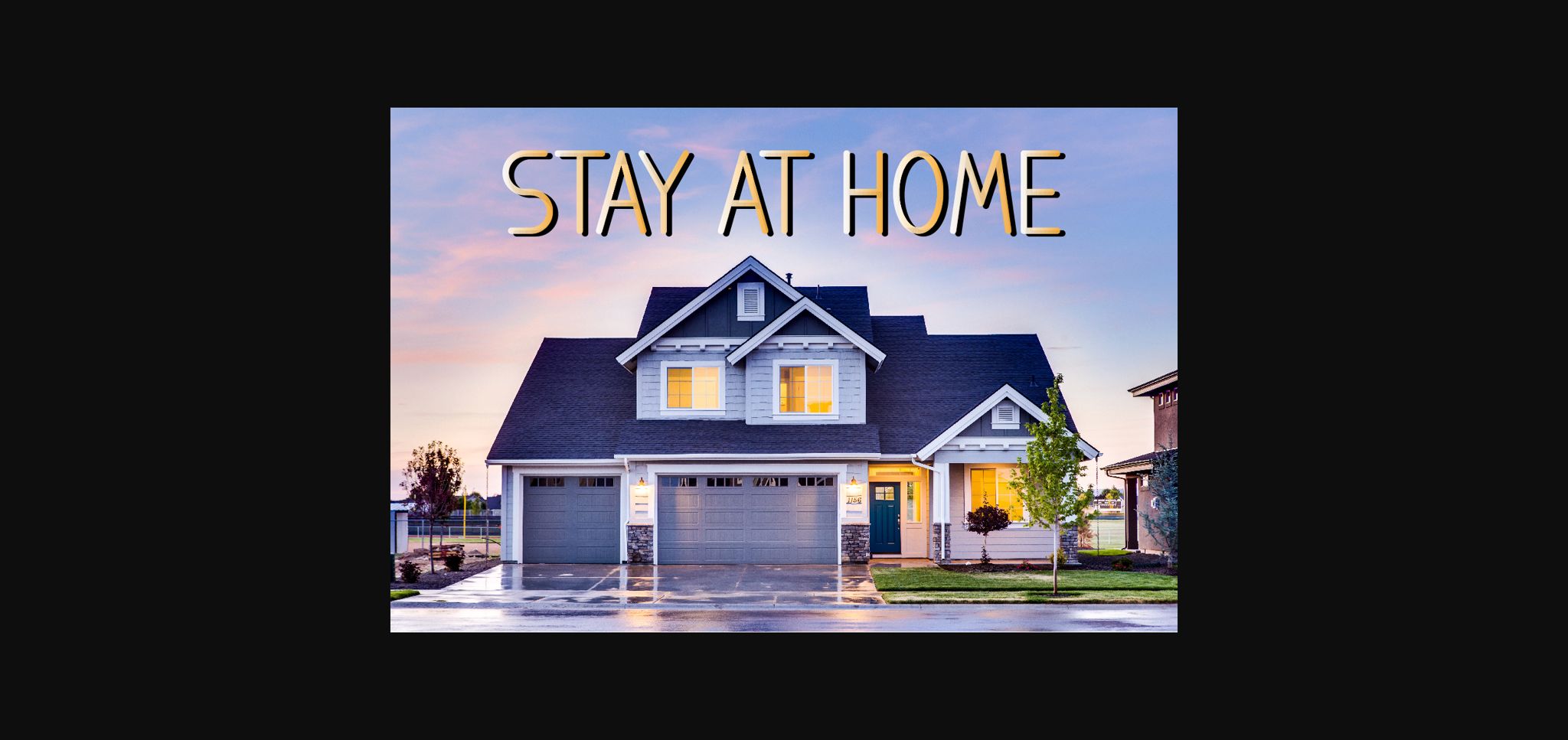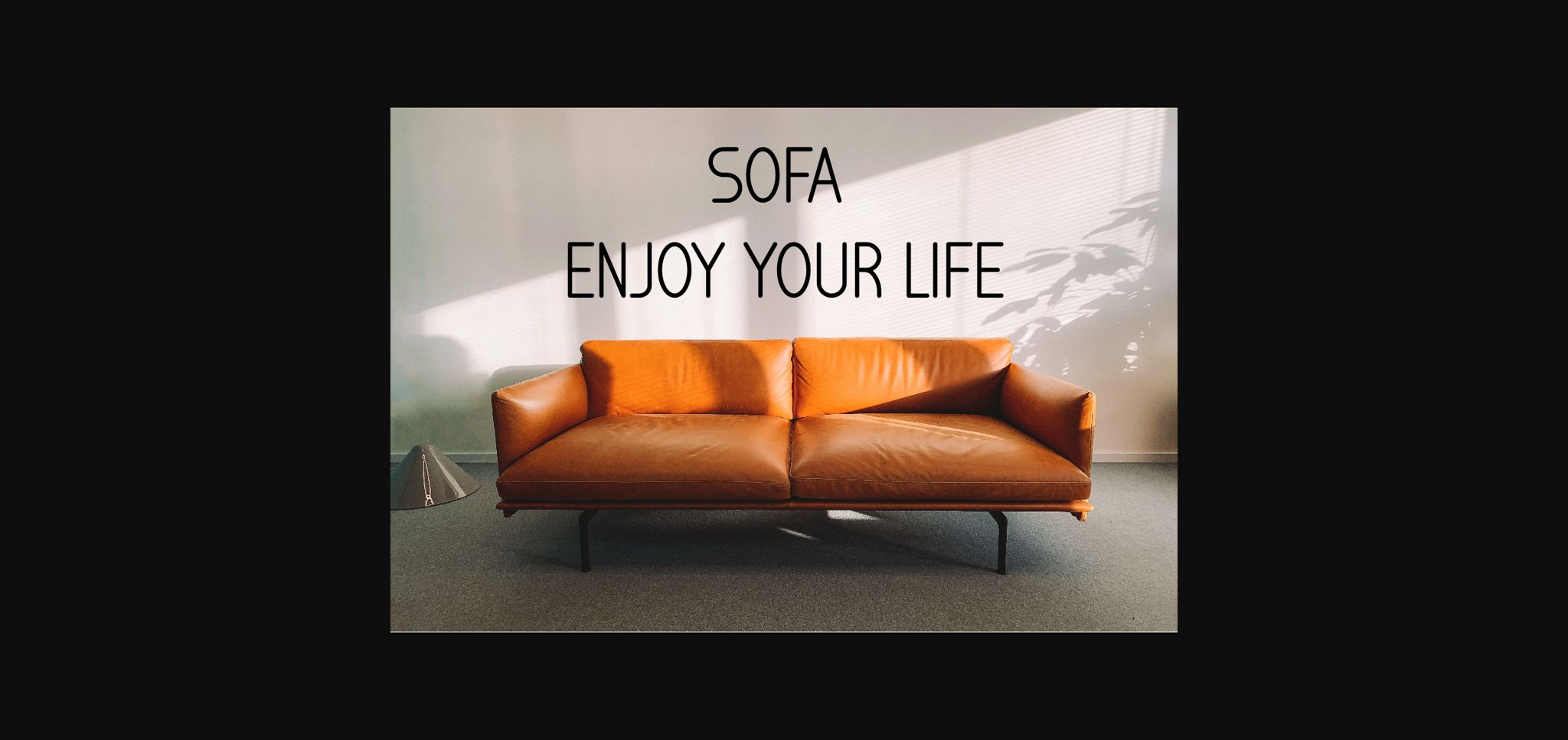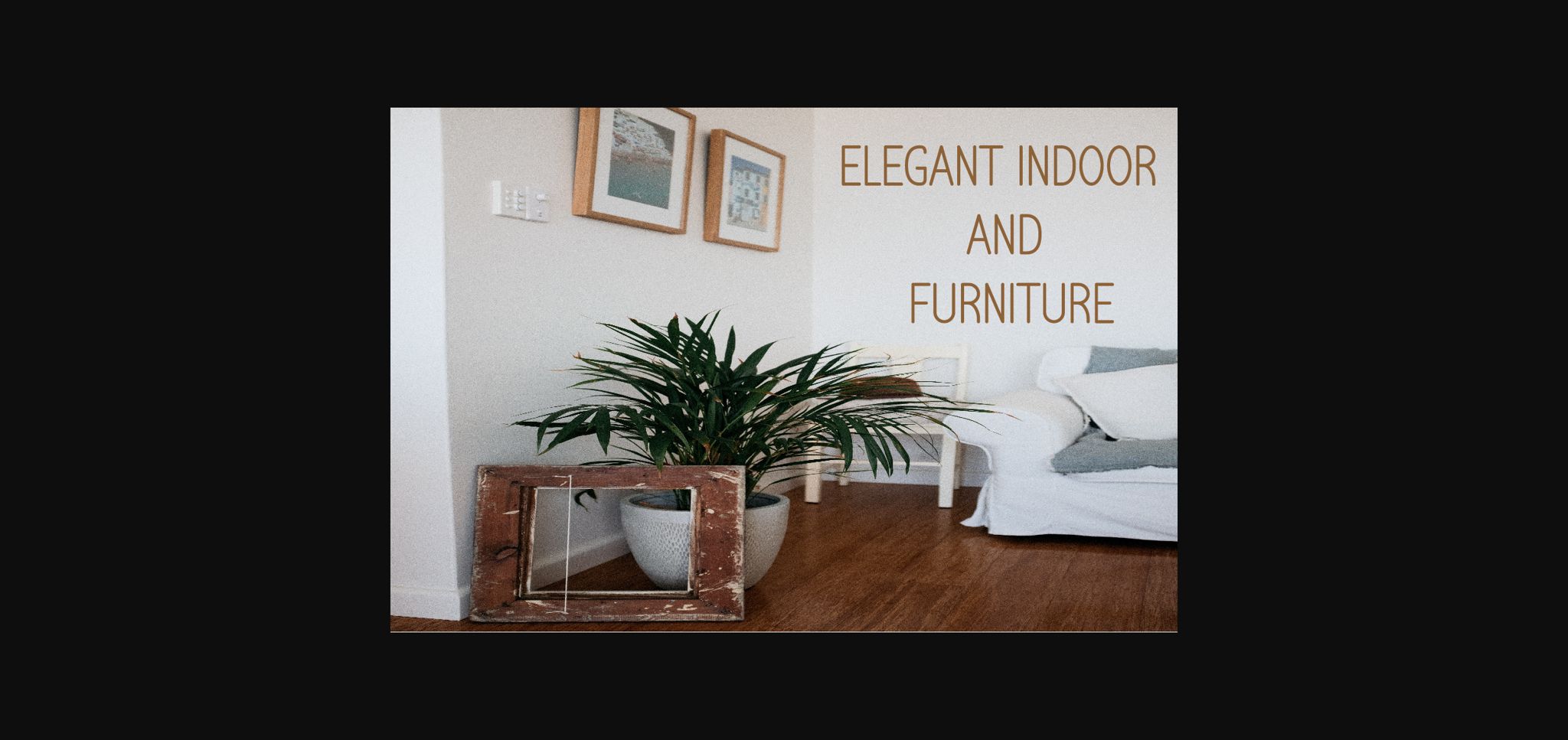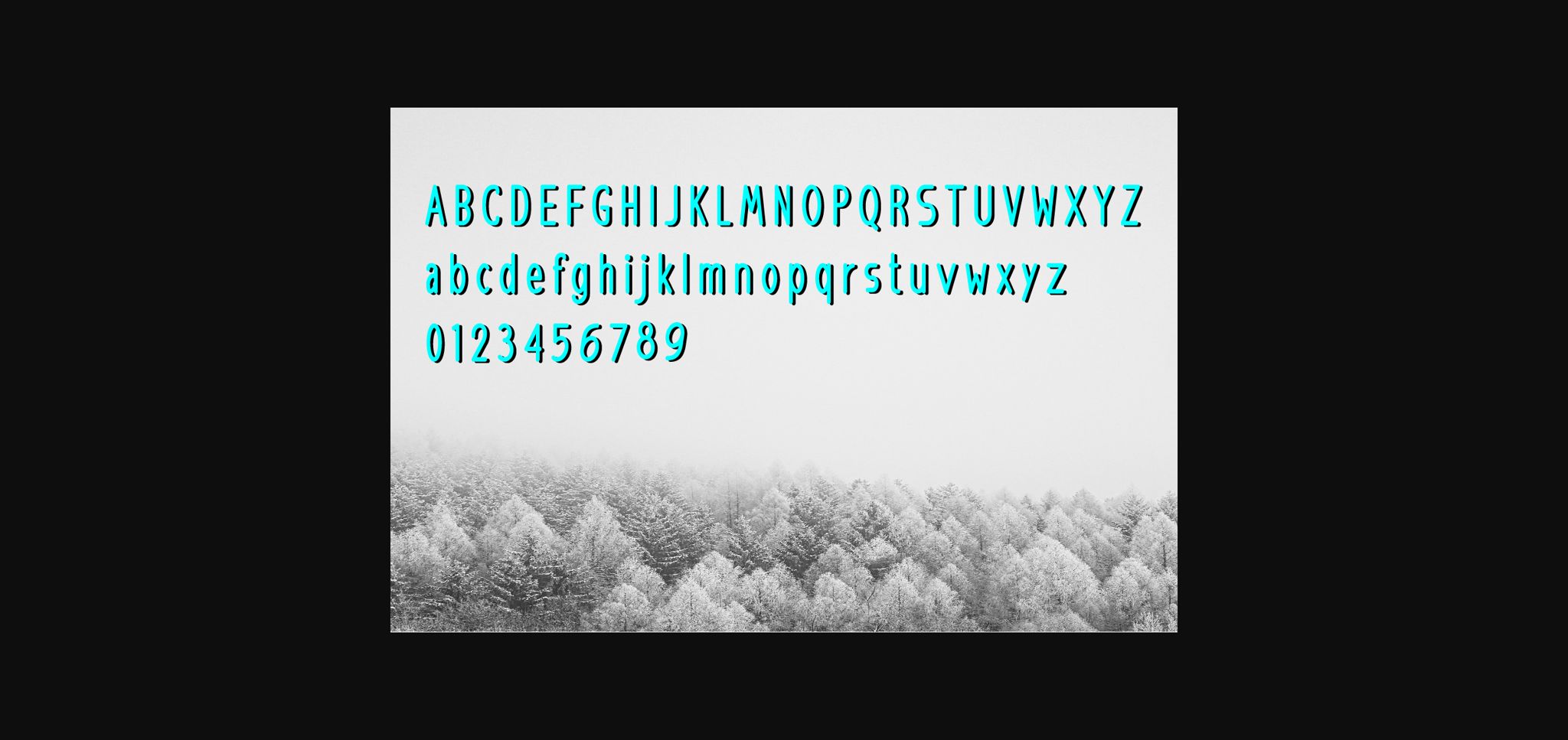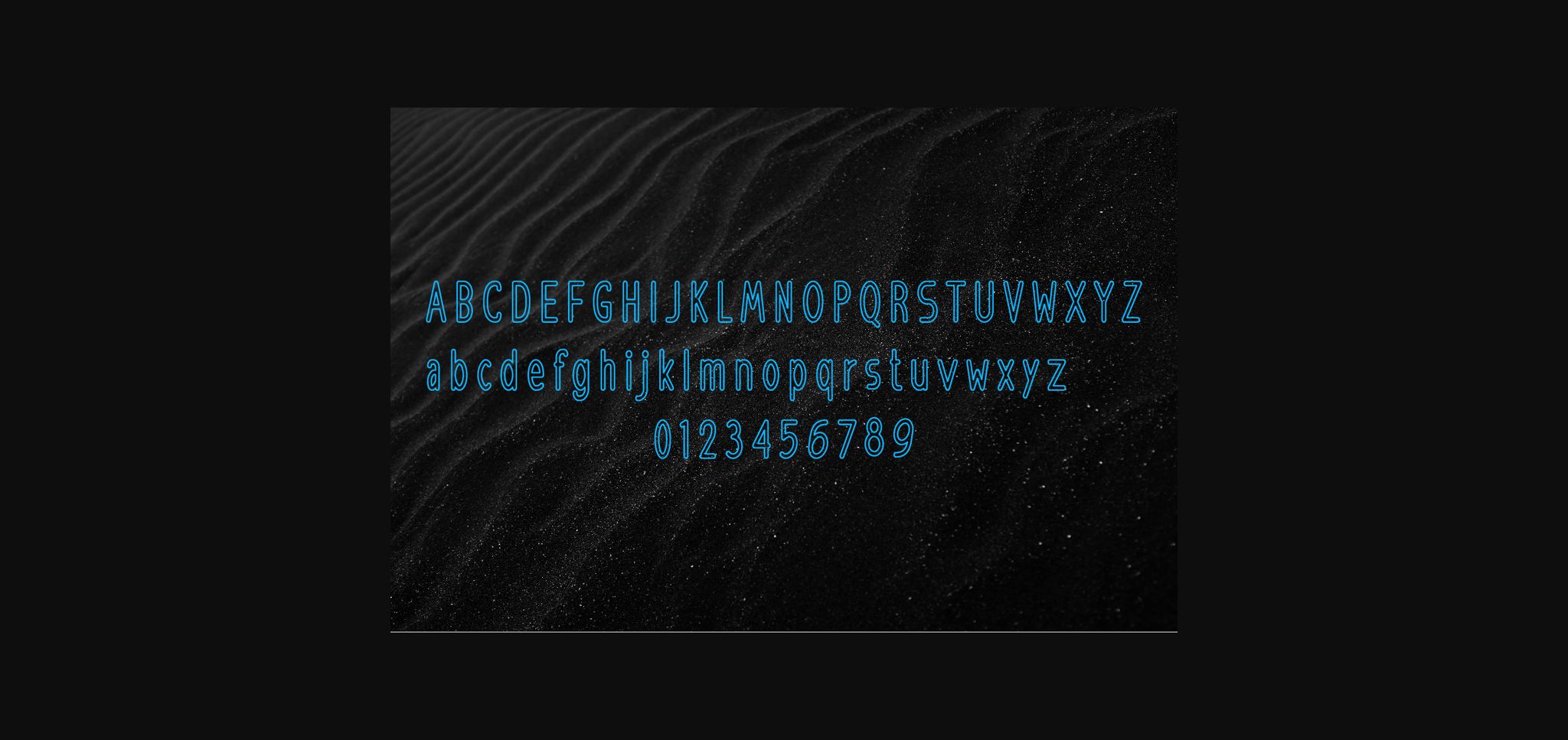
HomeSans Serif FontsStay at Home Font Sans Serif Fonts Stay at Home Font FacebookXPinterestWhatsApp 1 of 7 ... Stay at Home Font Poster 2... Stay at Home Font Poster 3... Stay at Home Font Poster 4... Stay at Home Font Poster 5... Stay at Home Font Poster 6... Stay at Home Font Poster 7... About Stay at Home Font Stay at Home is a minimal, yet elegant sans serif font. Suitable to a wide variety of designs, Stay at Home has the potential to become your favorite go-to font, no matter the occasion! DOWNLOAD NOW People also explored Sidney Font Yearly Font Farmhouse Signature Font Giselle Font Nugo Sans Sacred Woodlands Font Kimberly Font Baby Mollusca Dance Font 284 0 TagsStay at Home Font Previous articleAgrem FontNext articleBauhaus Font LEAVE A REPLY Cancel reply Comment: Please enter your comment! Name:* Please enter your name here Email:* You have entered an incorrect email address! Please enter your email address here Website: Save my name, email, and website in this browser for the next time I comment. Personal Use Free Hatchill Personal Use Free Read more about this font Black Friday Personal Use Free Read more about this font Hollow Personal Use Free Read more about this font Befindisa Personal Use Free Read more about this font BLOG How to Cut Any Font on Cricut: Convert a Font to SVG (Free) Turn any font into a clean SVG so it cuts crisp on Cricut - a quick 3-step workflow using a free font-to-SVG tool. Elegant Wedding Invitation Fonts – Handwritten & Script Fonts Top 10 Handwritten Fonts That Elevate Your Designs The 10 Best Handwriting Fonts to Add Personality to Your Designs